Sofiatweet, a Modern Elegant Luxury Serif, featuring both regular and oblique styles, this typeface is designed to add a touch of class and beauty elegant to your projects. Its graceful letterforms and stylish contrast make it a perfect choice for high-end designs. Such as branding, fashion editorials, wedding invitations, luxury packaging, elegant headlines, social media graphics, logos, magazines, beauty product designs, advertising, and anymore. Comes with uppercase and lowercase letters, punctuation, numerals, ligatures, and alternates, providing endless possibilities for creative typography. With multilingual support, Sofiatweet ensures your designs are accessible worldwide. Designed for those who appreciate beauty and luxury, Sofiatweet brings an elegant, modern, and high-fashion appeal to any project. Whether you're crafting a brand identity or a stylish editorial layout, this font ensures timeless elegance and premium quality.
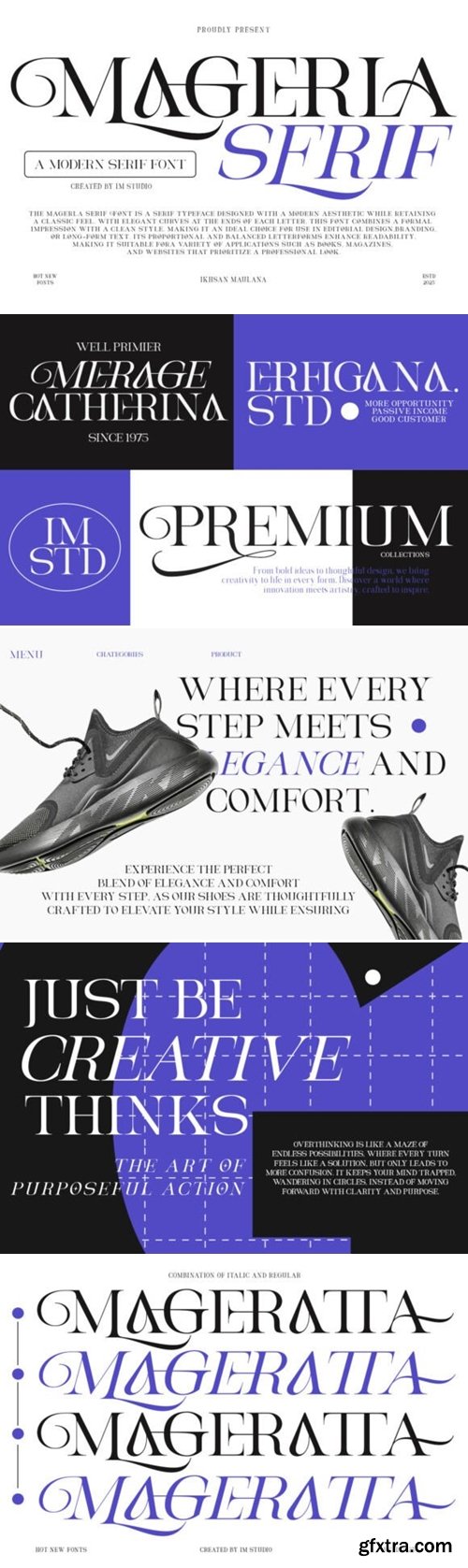
Say hello to Magerla Serif :) is a gorgeous multi-weight and height typeface product - In Regular and Italic styles. Two handy fonts included. Magerla Serif is stylish, made to be very versatile - it can transform into a sophisticated, refined project - or a bold and daring retro design. Just take your pick :) Use the Typeface tester below to type your text and try it out!
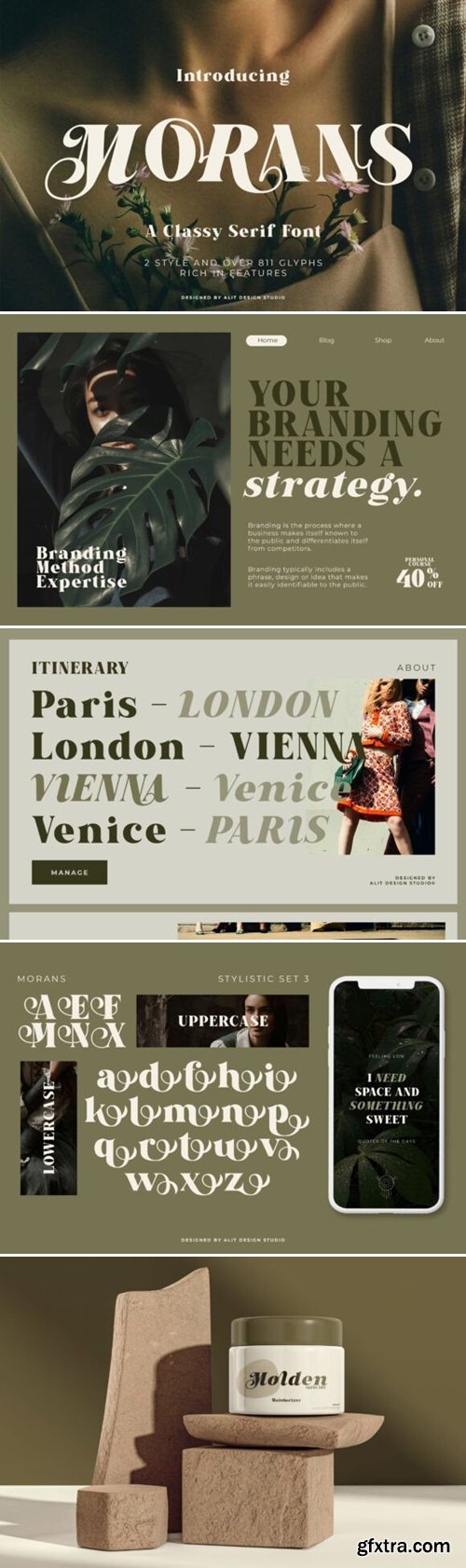
Designed by Alit Design Studio, Morans is a premium serif typeface that embodies elegance, sophistication, and versatility. It’s perfect for designers looking to make a bold and refined statement in their projects.
Craving something sweet and fun? Meet Cendols, a playful serif font with a delightful twist! Inspired by the joy of desserts, Cendols brings a warm, friendly vibe to any design. With its bold yet friendly style, Cendols is perfect for branding, packaging, logos, poster, social media designs and anything that needs a dash of fun. Includes ligatures, alternates, and multilingual support, making it even more versatile and exciting to use. Works well in modern, unique and cheerful personality to your text.
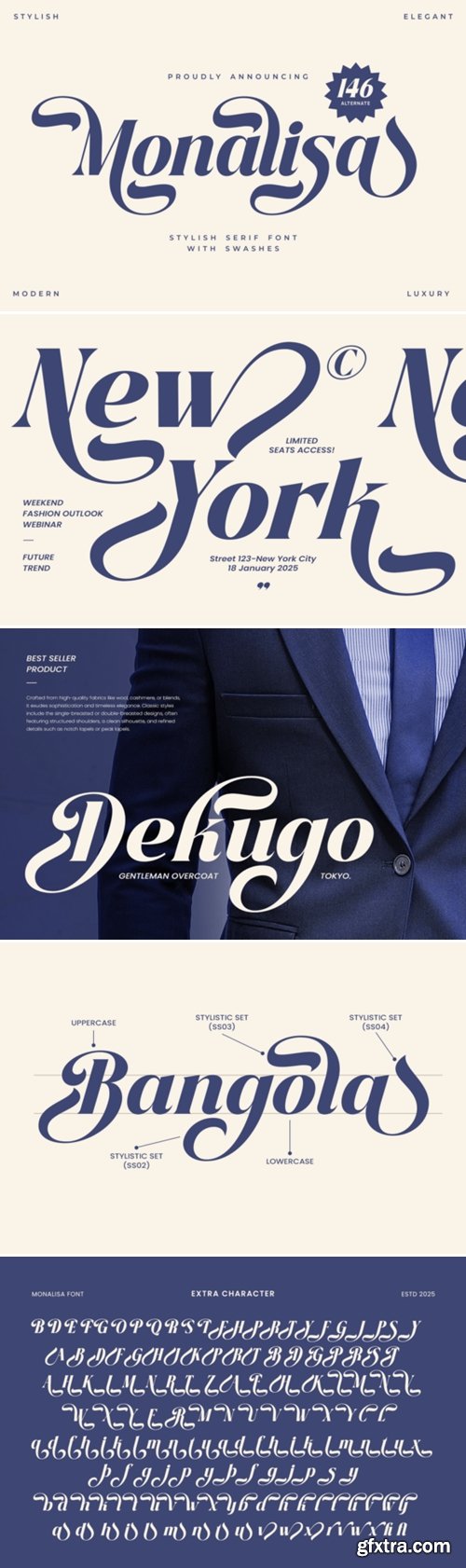
Monalisa is an elegant serif font that exudes timeless sophistication and charm. The highlight of this font lies in its exquisite swashes that resemble the delicate wings of a butterfly, lending a whimsical and enchanting feel to every design. Its refined curves and intricate details make it a standout choice for anyone seeking a font that combines beauty and grace.
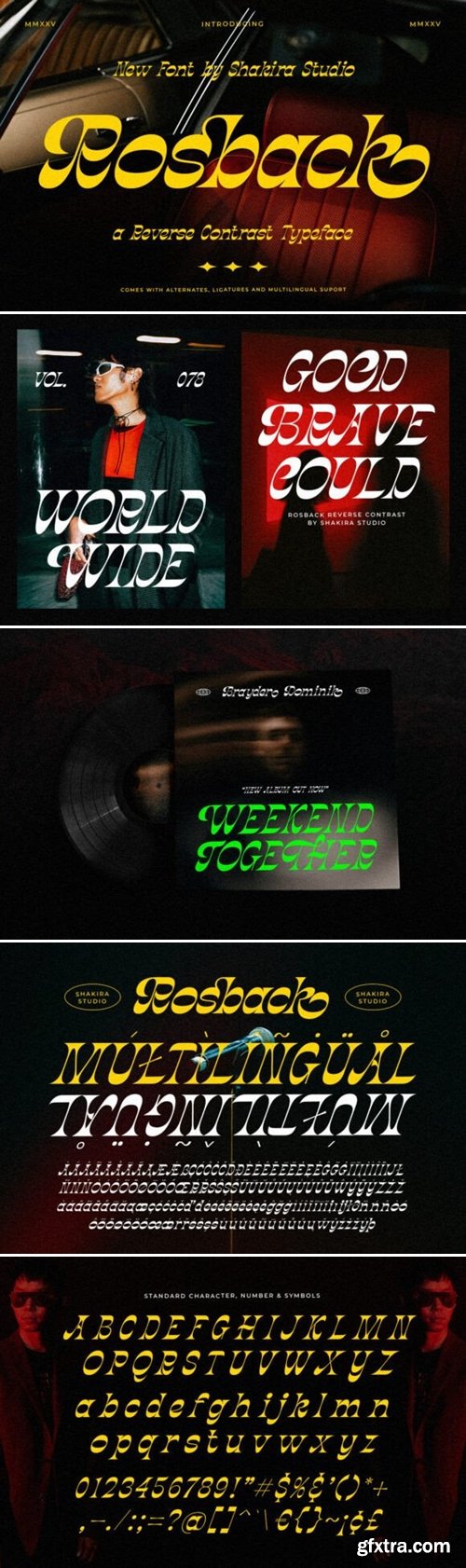
Rosback is a display serif font with a unique reverse contrast, delivering a distinctive and elegant look. Equipped with alternates and ligatures, this font offers exceptional flexibility in design. Perfect for branding, posters, magazines, product packaging, and various print designs that require a modern vintage touch with a strong character. With multilingual support, it is highly versatile for global design needs. Enhance your design aesthetics with Rosback, a high-quality font ready to elevate your brand’s visual identity!
Introducing the rounded serif font, Funjoy! This font brings joyful and playful vibes. Funjoy combines a classic touch with a modern twist, making it ideal for any project that needs a fun and cheerful atmosphere. With alternates, ligatures, and multilingual support, this font stands out and is versatile for any project. Perfect for branding, logo design, packaging, restaurant menus, headlines, social media, and any project that needs a delightful and approachable feel.
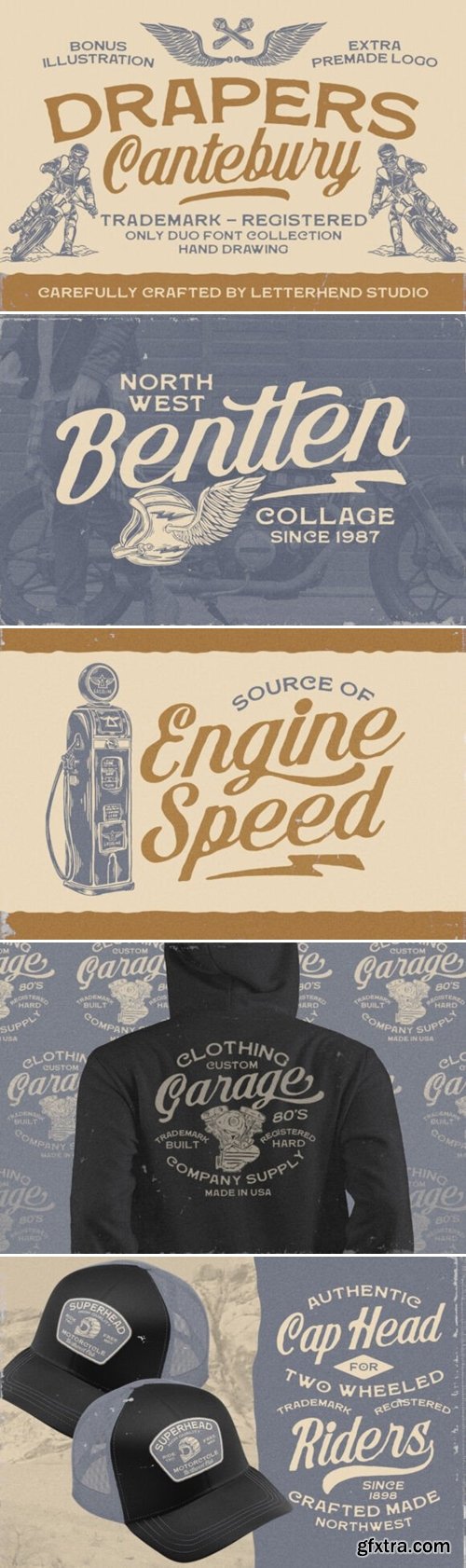
Drapers Canterbury is a bold and vintage-inspired duo font collection, carefully crafted to bring a rugged yet elegant touch to your designs. Featuring a mix of strong serif and classic script, this hand-drawn typeface is perfect for branding, logos, apparel, posters, packaging, and more.
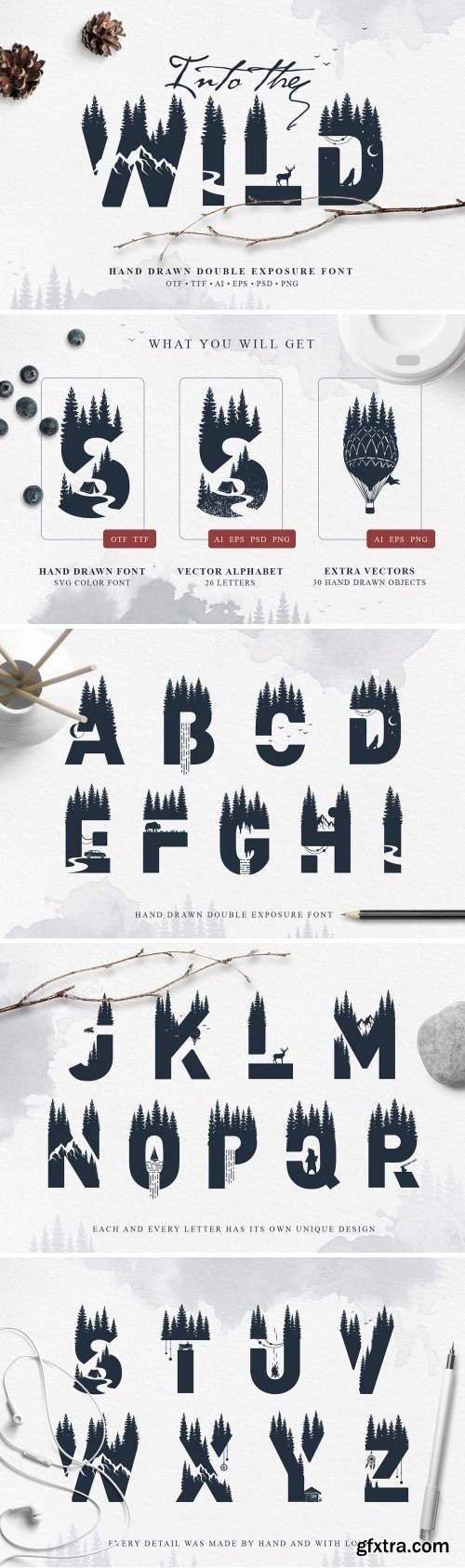
Introducing my first Color Font! Wild modern font with double exposure effect that will look awesome in yours design project. Each letter is unique. Forest, mountains, animals - every detail was made by hand and with love . Here's what's included: Wild Font - OTF, TTF. 26 Alphabet Letters - AI, EPS 10, PSD, PNG (100% transparency, 6000x6000px, 300dpi). 30 Hand Drawn Objects - AI, EPS 10, PNG (100% transparency, 6000x6000px, 300dpi).
Volter is a serif font family that blends classic elegance with modern flexibility. Designed with precision, Volter offers 9 different styles, ranging from Thin to Black, giving designers the freedom to create unique and character-rich works. With clean letterforms, balanced proportions, and subtle serif-inspired details, Volter is perfect for branding, editorial design, packaging, and UI/UX. This font also supports multilingual compatibility, ensuring seamless use across various global languages.
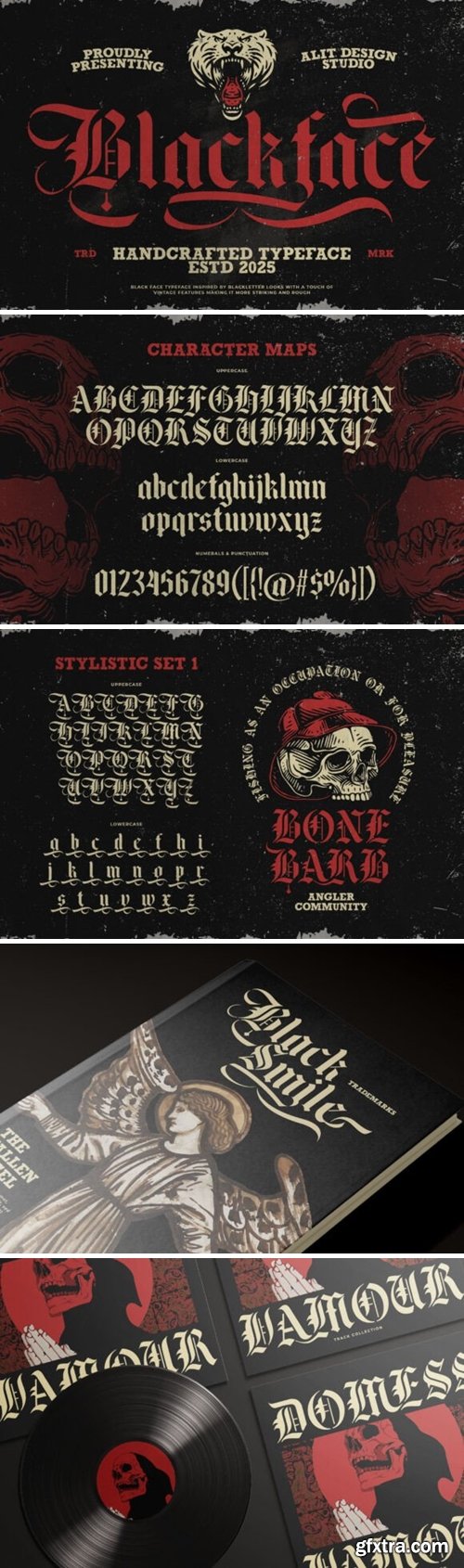
- outstanding in a wide range of contexts. *
Introducing Bestari - Display serif font. Bestari is a display, minimalis & elegant serif font, This type of font is very suitable for your various needs such as branding projects, logos, social media posts, advertisements, labels, product packaging, photography, wedding designs, watermarks, invitation product designs, stationery, and any project.